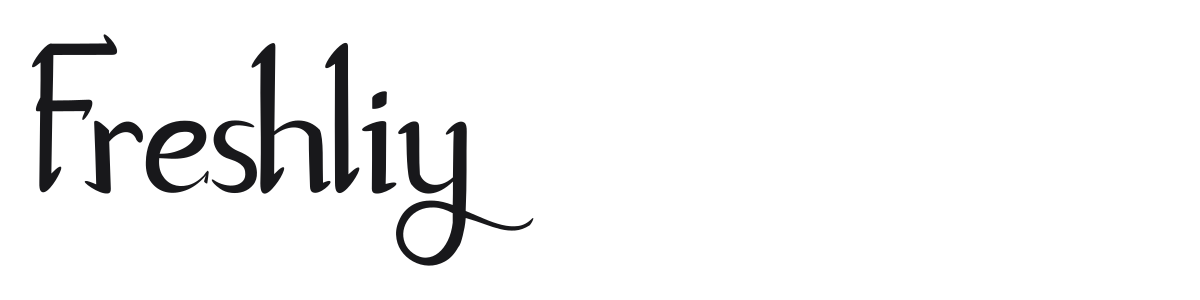
Freshliy
Freshliy is a calligraphic uncial that bridges medieval manuscript tradition with a loose, expressive energy. Sweeping stroke contrast, looping descenders, and decorative swash terminals give it a hand-lettered feel rooted in Celtic penmanship. It reads as both ancient and alive.